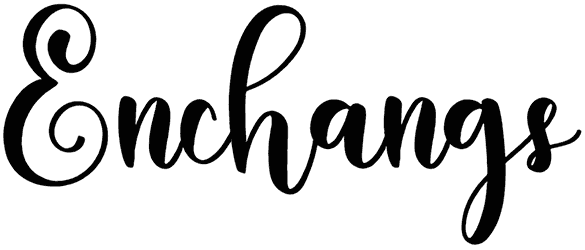
Enchangs Font
Change the simple appearance of your design to a lively and charming one and receive your viewers’ admiration. This lovely and twisty romantic font, which is called Enchangs, is able to make a nice illustration for any theme. It has almost full characters, which means it can be an excellent choice for many designs, from business cards to social media posts and apparel.